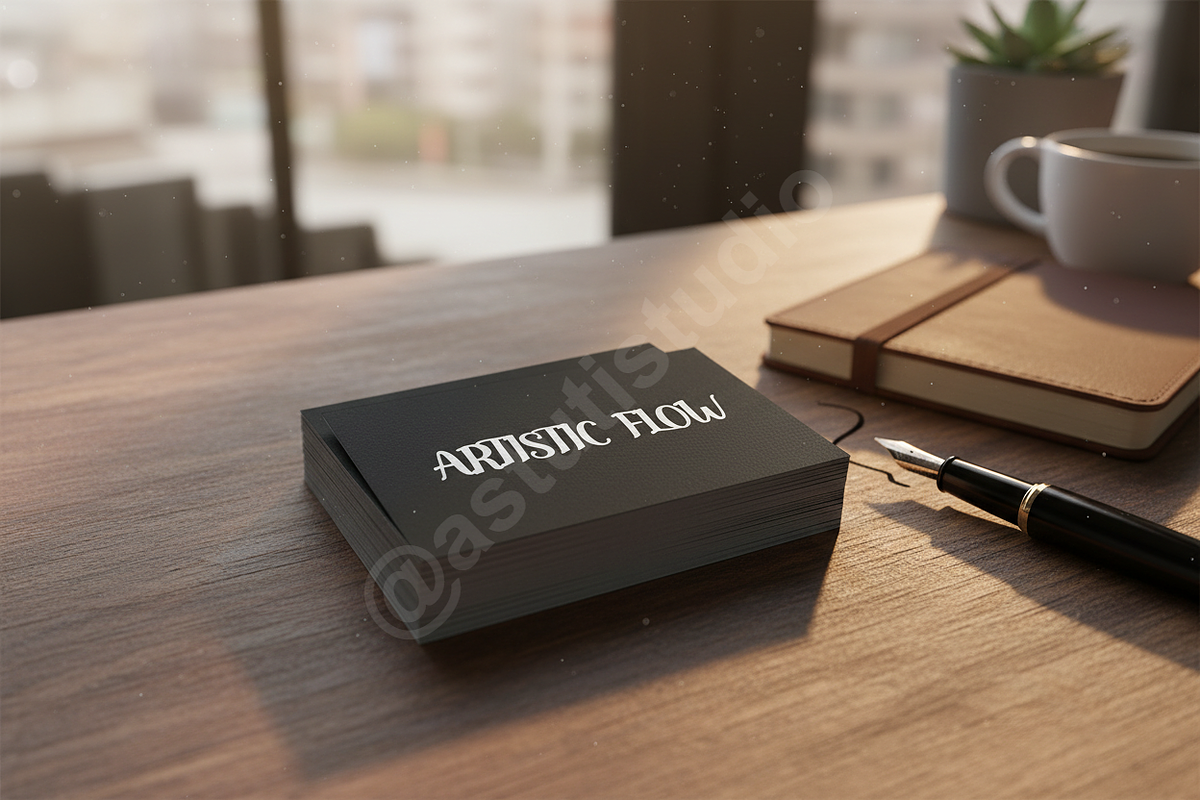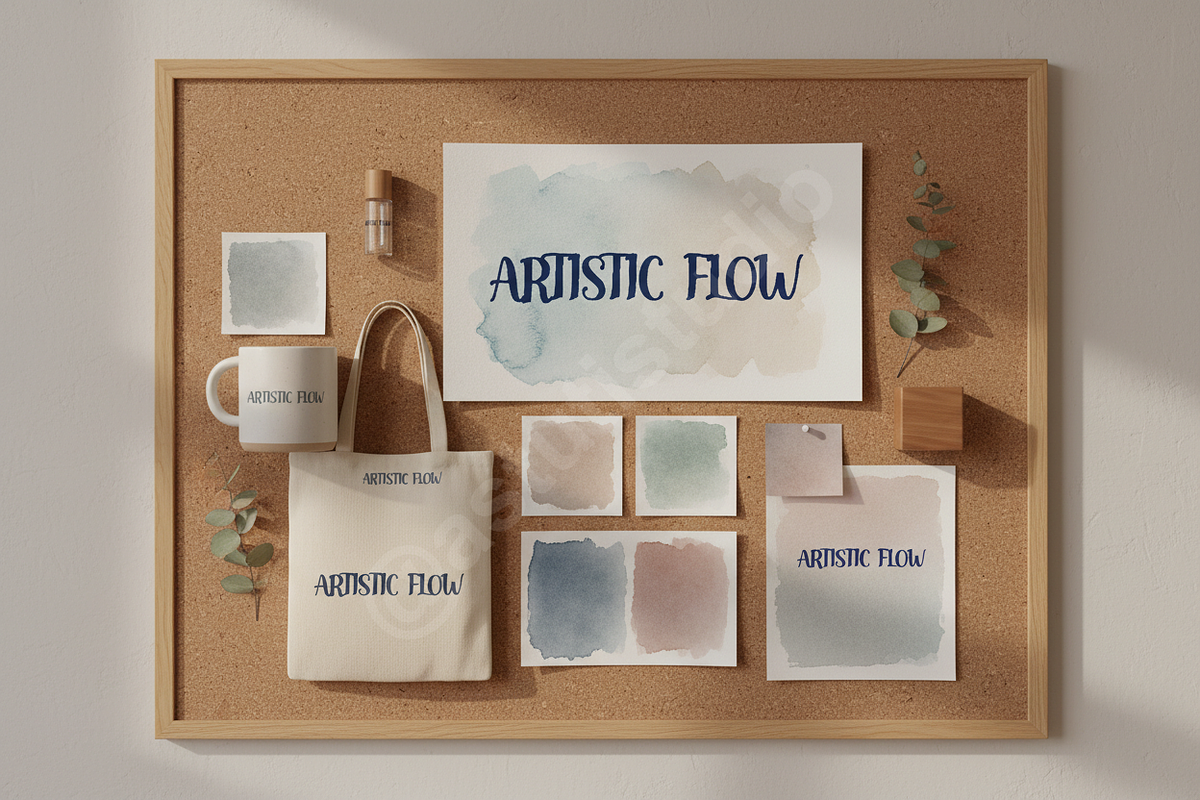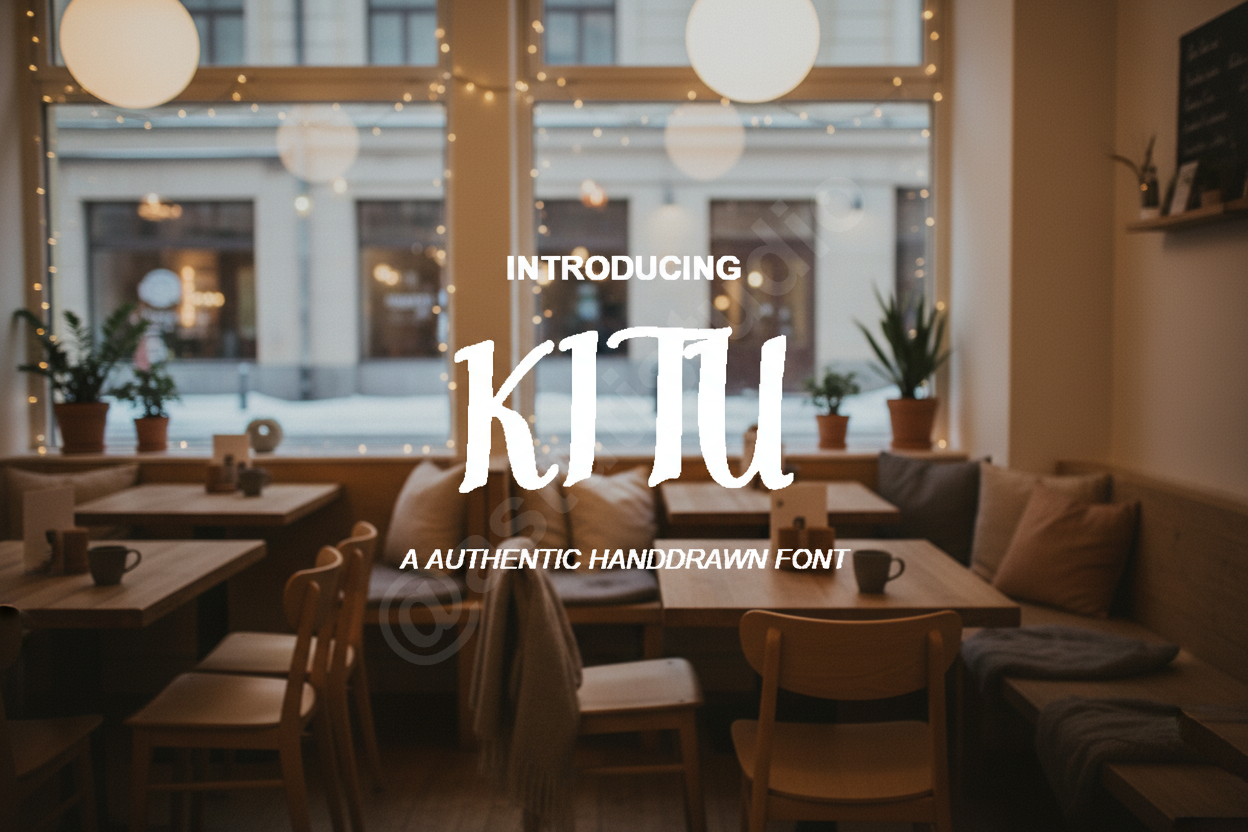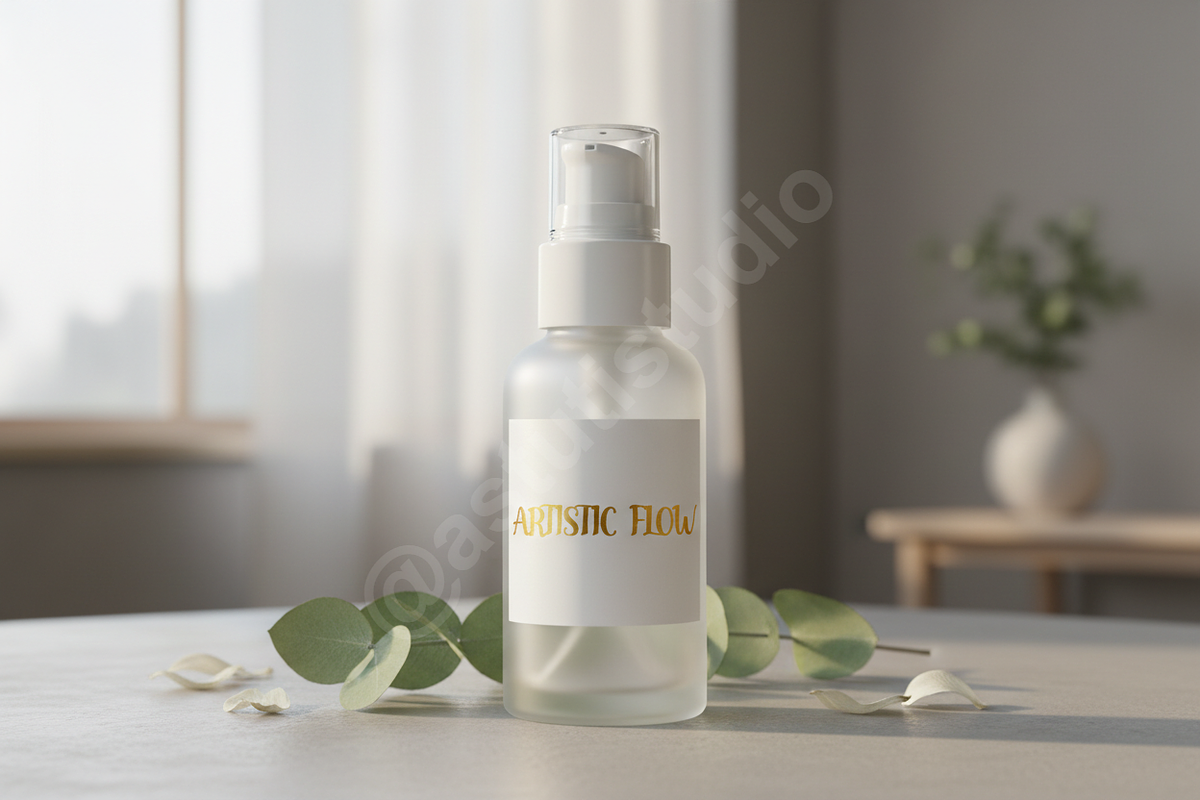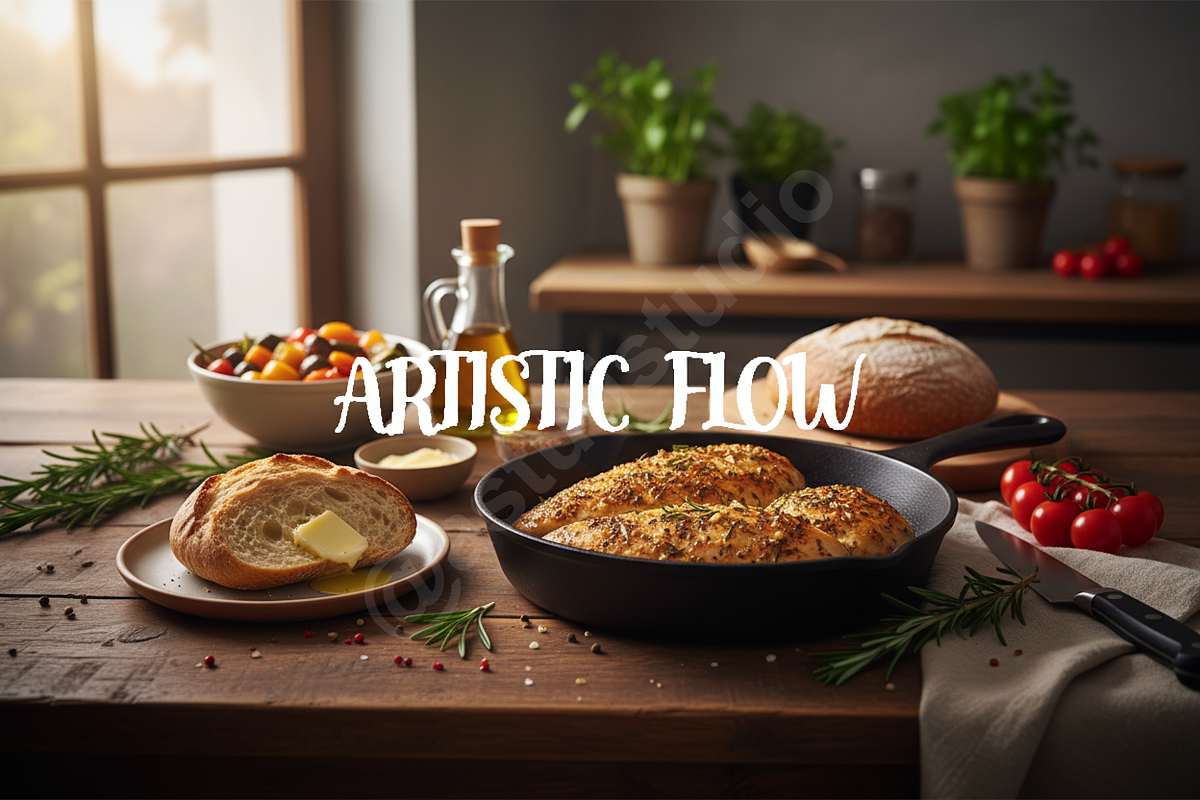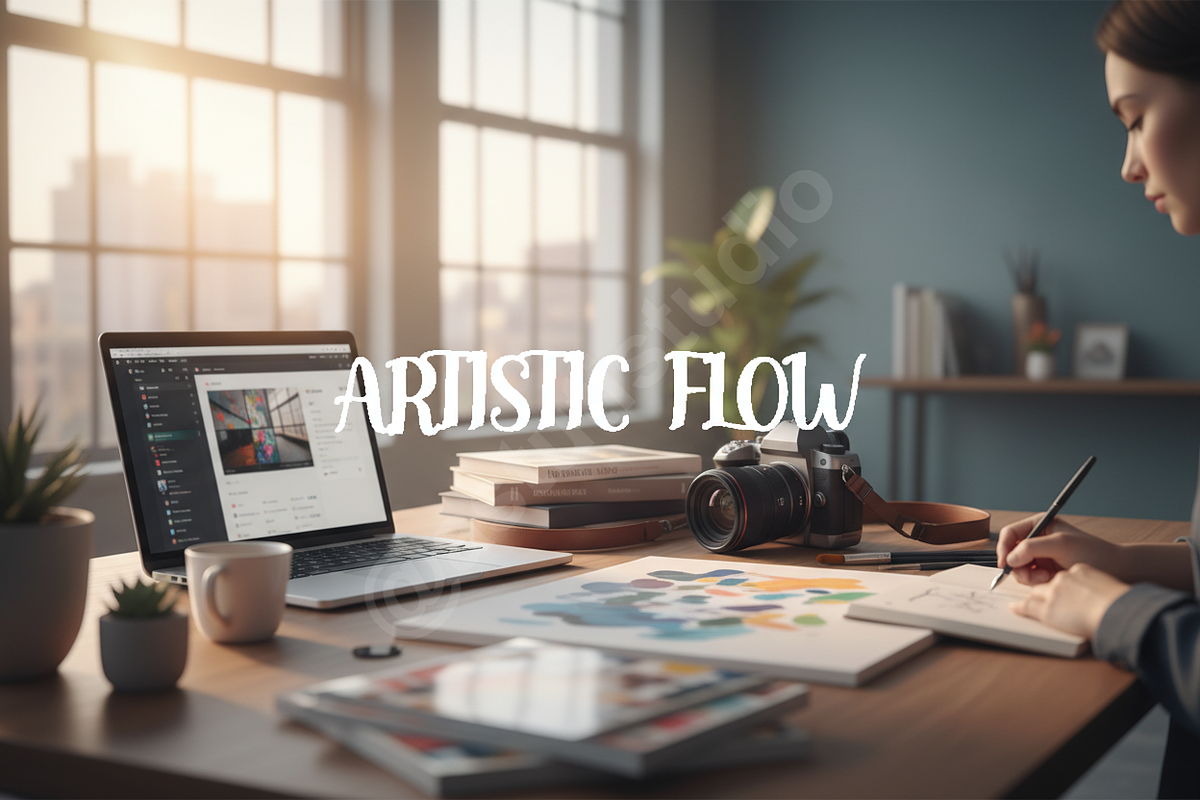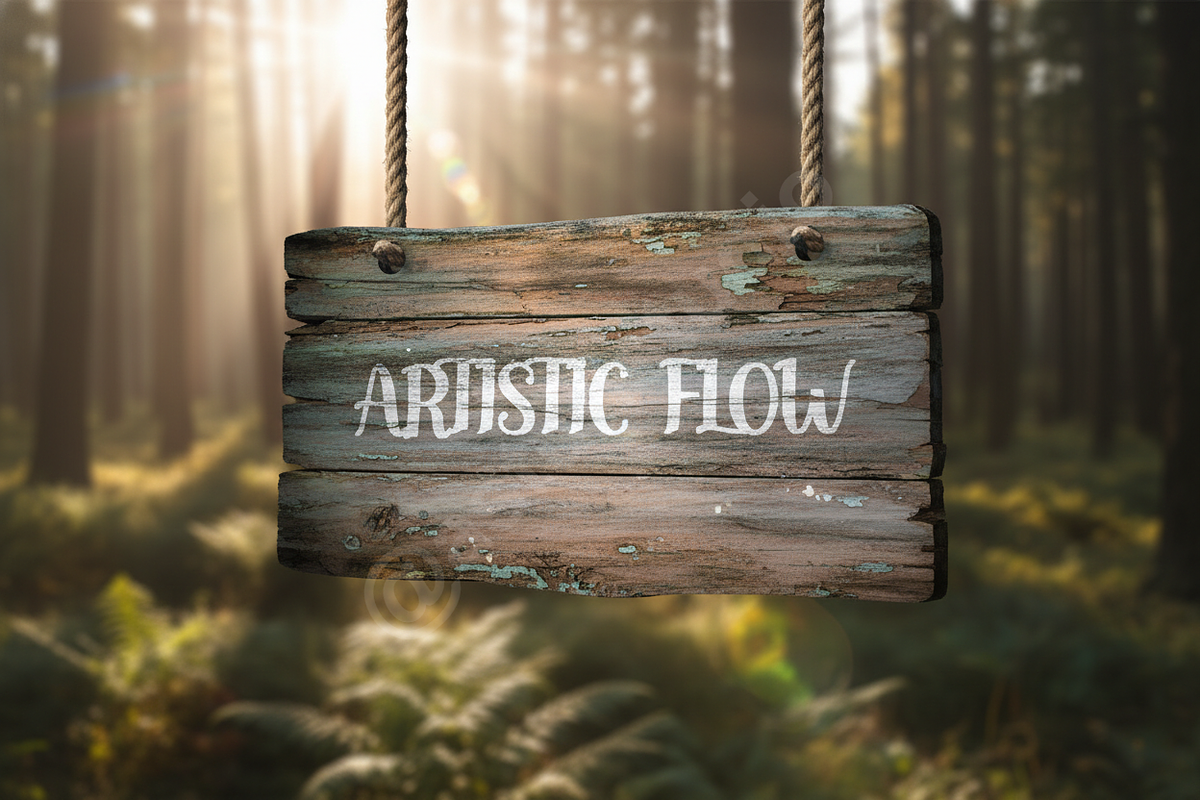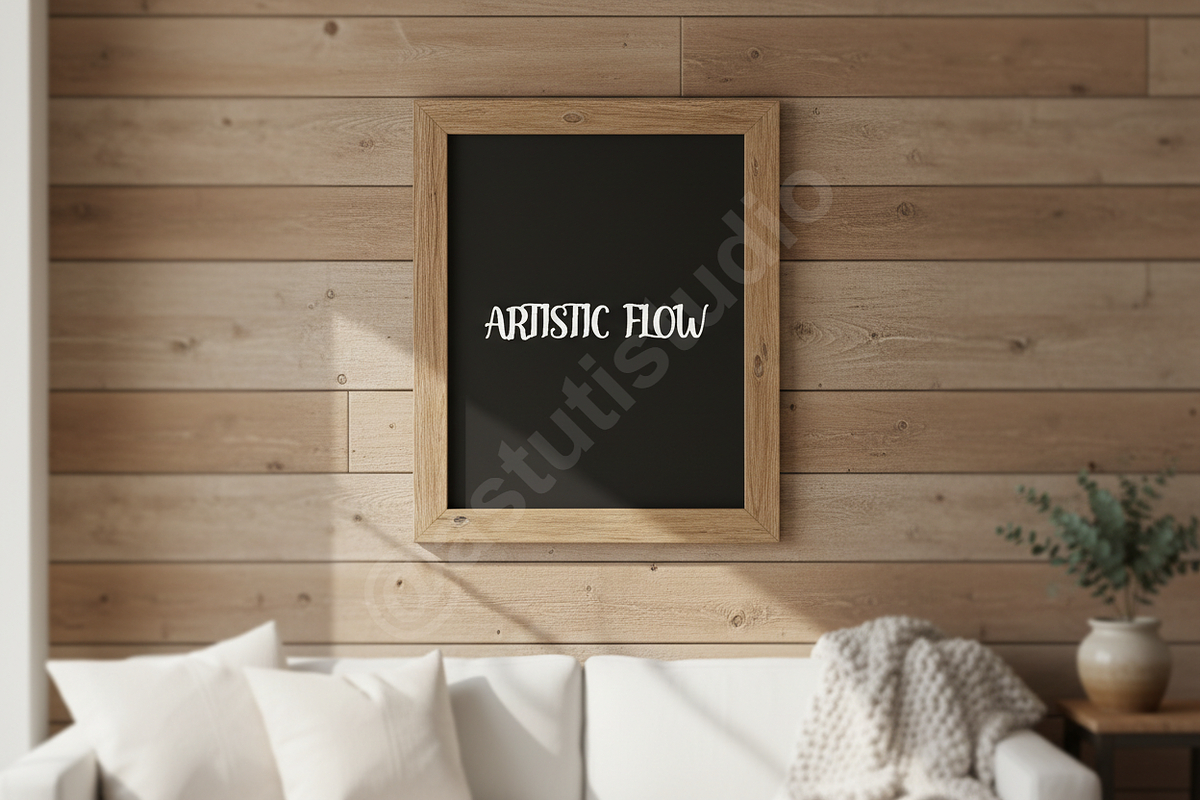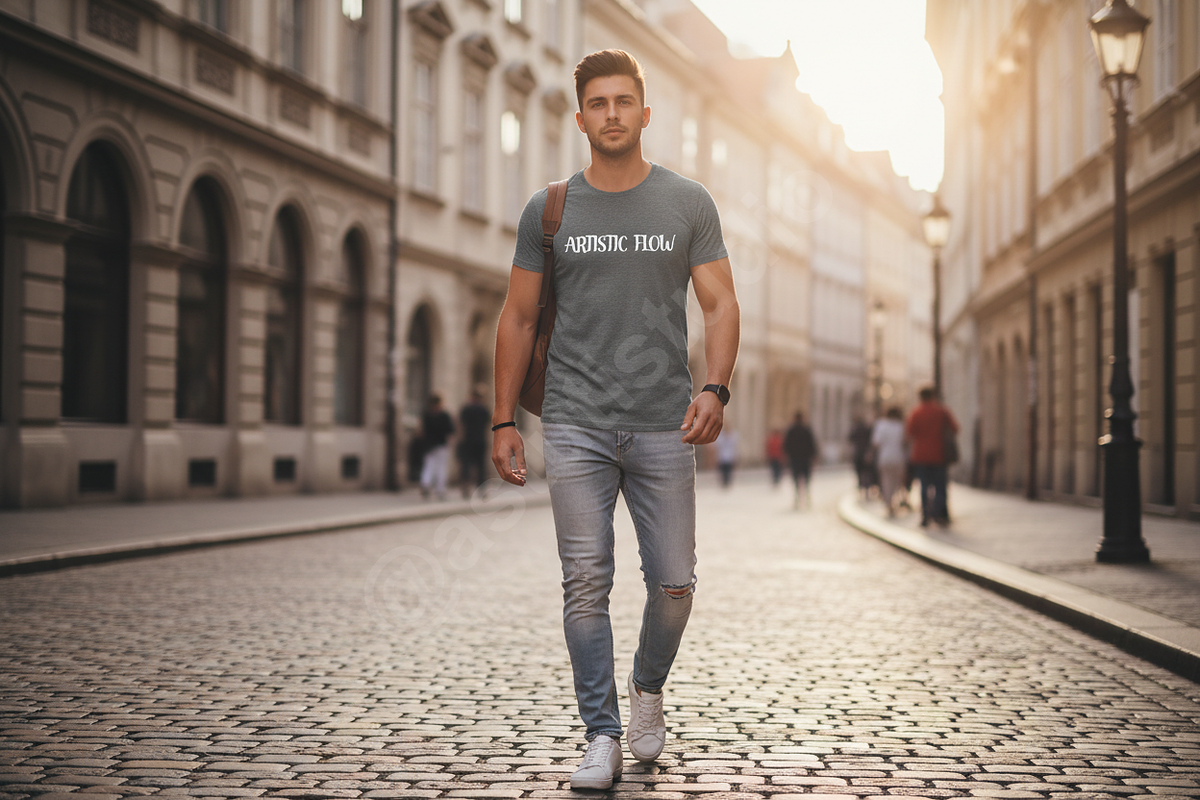
Kitu - Elegant Modern Serif Typeface
INTRODUCTION Elevate your creative projects with Kitu, a sophisticated serif typeface designed for high-end aesthetics. Merging timeless elegance with contemporary proportions, Kitu is the definitive choice for designers seeking a premium studio finish. Its balanced weights and refined curves make it exceptionally suited for luxury branding, high-fashion editorial layouts, and curated social media content.
- Sophisticated high-contrast letterforms
- Extensive set of unique ligatures for custom looks
- Stylistic alternates for versatile character design
- Full multilingual support for global reach
- Optimized kerning for professional-grade readability
- Crisp rendering at both display and body sizes